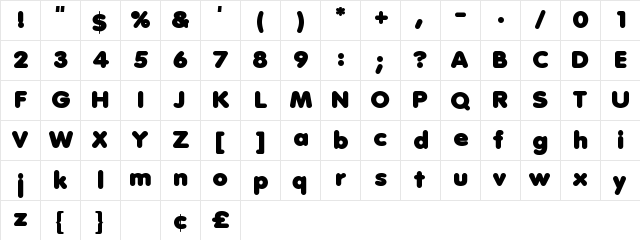
Adira Display SSi Regular
Design Context for Adira Display SSi Typeface
Adira Display SSi is built around its visual character rather than neutral utility — its distinctive forms are designed to make an impression at display sizes.
Font Pairing: Pair with a clean neutral sans-serif for body copy to let Adira Display SSi's character lead without overwhelming the composition.
Pro Tip: Treat Adira Display SSi as the centrepiece of your typographic hierarchy. One strong heading set in a decorative face can carry an entire layout.